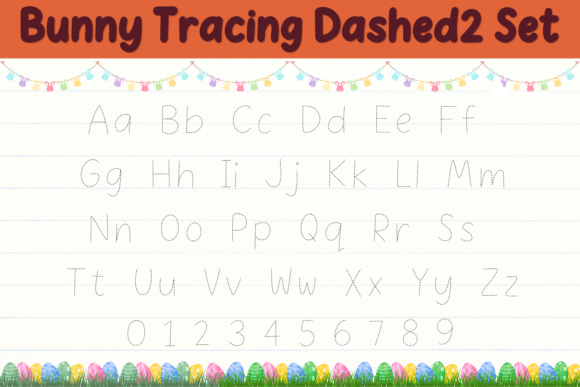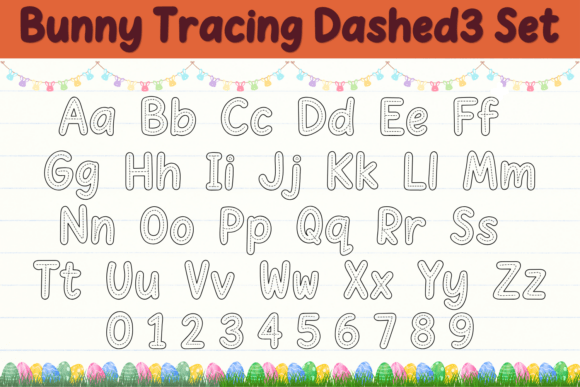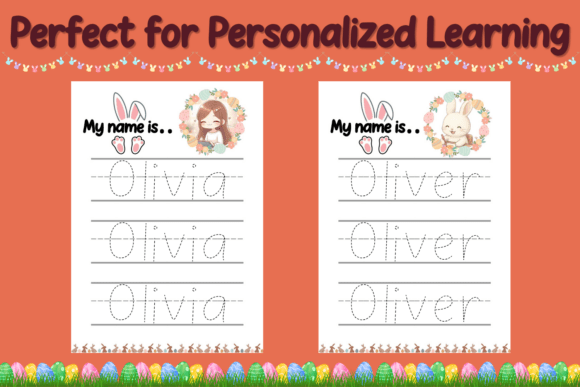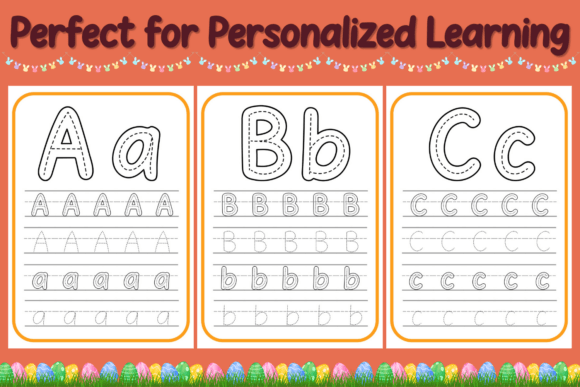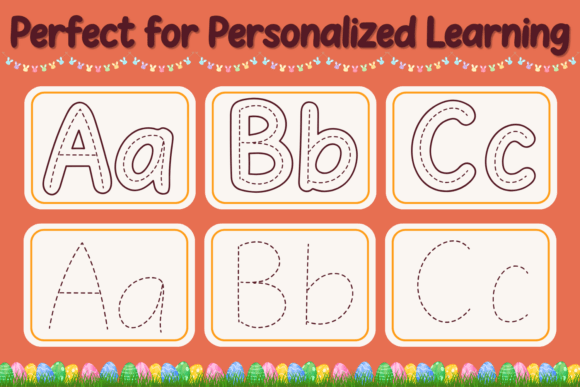
Bunny Tracing Dashed Duo: The Ultimate Font for Fun and Engaging Handwriting Practice
Are you a teacher, parent, or designer looking for a fun and engaging way to help children develop their handwriting skills? Look no further than the Bunny Tracing Dashed Duo font! This delightful font set is specifically designed for early childhood education, making learning to write a “hoppy” experience for kids. In this article, we’ll explore the features and benefits of the Bunny Tracing Dashed Duo font and how it can be used to create interactive and educational materials for children.
What is Bunny Tracing Dashed Duo?
Bunny Tracing Dashed Duo is a specialized font set that includes two distinct styles: Dashed Lines and Outline Dashed. These fonts are carefully crafted to help children master letter formation and pen control, essential skills for developing good handwriting habits. The fonts are designed to be used in conjunction with one another, providing a comprehensive handwriting practice experience for young learners.
Key Features of Bunny Tracing Dashed Duo
- Dashed Lines: This font features dashed lines that help children develop their pen control and letter formation skills. The dashed lines provide a clear guide for children to follow, making it easier for them to learn and practice writing.
- Outline Dashed: This font takes the dashed lines to the next level by providing an outline of the letters. This style helps children develop their fine motor skills and hand-eye coordination while practicing handwriting.
- Easter-themed: The Bunny Tracing Dashed Duo font is perfect for Easter-themed activities, making handwriting practice a fun and engaging experience for children.
Benefits of Using Bunny Tracing Dashed Duo
The Bunny Tracing Dashed Duo font offers numerous benefits for children, teachers, and parents. Some of the key benefits include:
- Improved Handwriting Skills: The font helps children develop their handwriting skills, including letter formation, pen control, and fine motor skills.
- Engaging and Fun: The Easter-themed font makes handwriting practice a fun and engaging experience for children, reducing the likelihood of frustration and boredom.
- Customizable: The font can be used to create a variety of educational materials, including worksheets, workbooks, and activity sheets, making it a versatile tool for teachers and parents.
Using Bunny Tracing Dashed Duo for Educational Materials
The Bunny Tracing Dashed Duo font is perfect for creating a range of educational materials, including:
- Classroom Worksheets: Create interactive worksheets that help children practice their handwriting skills, perfect for classroom activities or homework assignments.
- Homeschooling Printables: Use the font to create customized printables for homeschooling activities, making learning fun and engaging for children.
- Custom Tracing Workbooks: Create personalized tracing workbooks that cater to individual children’s needs, helping them develop their handwriting skills at their own pace.
If you’re a designer or crafter looking to use the Bunny Tracing Dashed Duo font in your work, here are some tips to get you started:
- Experiment with Font Sizes: Try out different font sizes to see how they work with your design. You may find that larger font sizes work better for headings, while smaller font sizes are more suitable for body text.
- Combine with Other Fonts: Don’t be afraid to combine the Bunny Tracing Dashed Duo font with other fonts to create a visually appealing design. This can help add contrast and interest to your work.
- Add Easter-themed Elements: Take advantage of the Easter theme by incorporating Easter-themed elements, such as bunnies, eggs, and spring flowers, into your design.
| Author | StillViiStudio |
The Bunny Tracing Dashed Duo font is a valuable tool for anyone looking to help children develop their handwriting skills. With its engaging and fun design, this font set is perfect for early childhood education. Whether you’re a teacher, parent, or designer, this font can help you create interactive and educational materials that make learning to write a “hoppy” experience for kids. So why not give it a try and see how it can help you create engaging and effective handwriting practice materials for children?